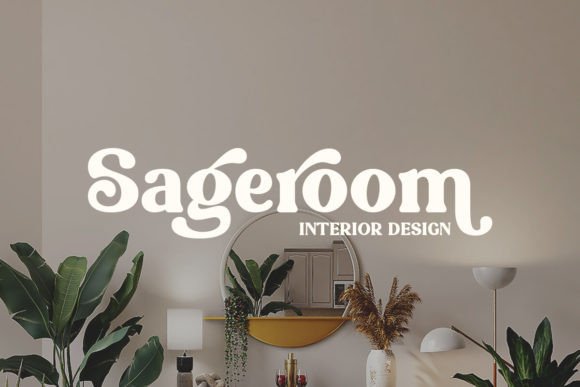
Melody Dreams Font
Melody Dreams is a retro serif font that draws inspiration from the old eras 70’s typography.
This font is characterized by decorative strokes or tails that extend from the ends of letters.
This font includes decorative elements with the uppercase, lowercase, and ligatures which add flair and uniqueness to the typography. It is great for titles, logos, quotes, packaging, headings and so much more.